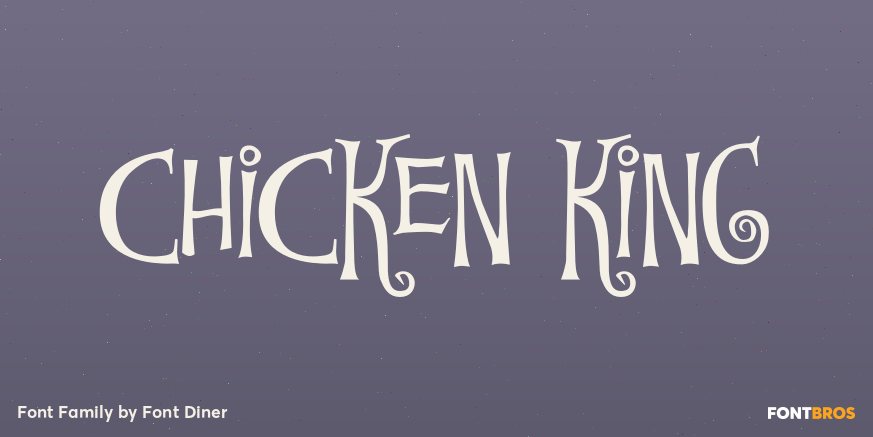
HomeFont BrosRetro (1936-1965)Chicken King Retro (1936-1965)Wacky Chicken King FacebookXPinterestWhatsApp 1 of 1 About Chicken King Nat King Cole was a merry old sole with a voice of gold and his own TV show! Celebrate this 1950s crooner in style with this fun offbeat retro serif font!  DOWNLOAD NOW People also explored Hitbary Font Keep on Rolling Font Vintage Font Marvin Regular Kids Navy Triblend Bella Canvas 3413Y Betrothed Font Firefly Font Distressed Telegraph Smooch Font 236 0 TagsChicken King Font Previous articleDOCU LightNext articleHT Maison LEAVE A REPLY Cancel reply Comment: Please enter your comment! Name:* Please enter your name here Email:* You have entered an incorrect email address! Please enter your email address here Website: Save my name, email, and website in this browser for the next time I comment. Personal Use Free Mini Story Personal Use Free Read more about this font Screengem Personal Use Free Read more about this font Unispace Personal Use Free Read more about this font Bolt Electric Personal Use Free Read more about this font BLOG Fonts That Capture the Spirit of New York City New York City is more than just a place—it’s an experience, a rhythm, a visual language... Top 10 Handwritten Fonts That Elevate Your Designs How to Install and Use Fonts on Windows, macOS, and Web Projects Free Fonts Risk: Why Free Fonts Can Be Dangerous for Designers